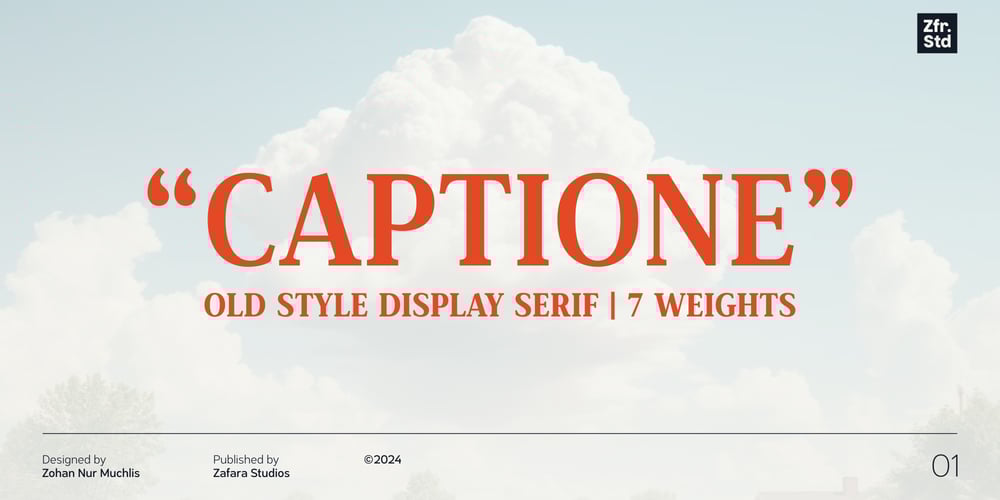
Captione Font Family was designed by Zohan Nur Muchlis and published by Zafara Studios. Captione contains 7 styles and family package options. Captione is a classic old style serif font designed to embody a sense of elegance and strength. With its traditional roots and contemporary clarity, Captione is timeless and versatile, featuring seven distinct weights from Thin to Bold that adapt to a variety of design needs. Each weight maintains the same elegant design features, with the thinner weights providing a subtle elegance and the heavier ones offering a commanding presence.The details:283 glyphs: uppercase, lowercase, multilingual, numbers, punctuation, fractions, currency7 weights: thin, light, book, regular, medium, semibold, bold25 languages: Afrikaans, Albanian, Basque, Catalan, Danish, Dutch, English, Estonian, Faroese, Filipino, Finnish, French, Galician, German, Icelandic, Indonesian, Irish, Italian, Malay, Norwegian Bokmål, Portuguese, Spanish, Swahili, Swedish, Zulu